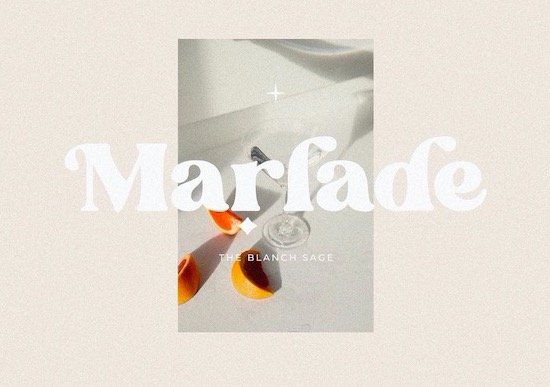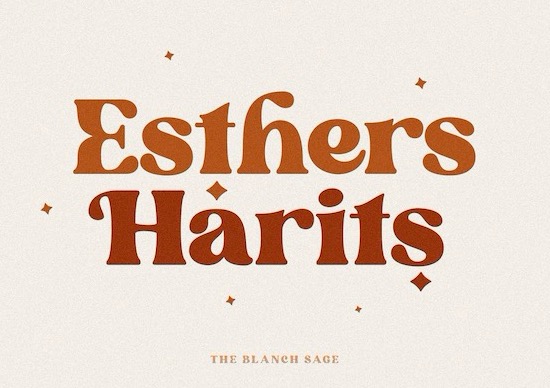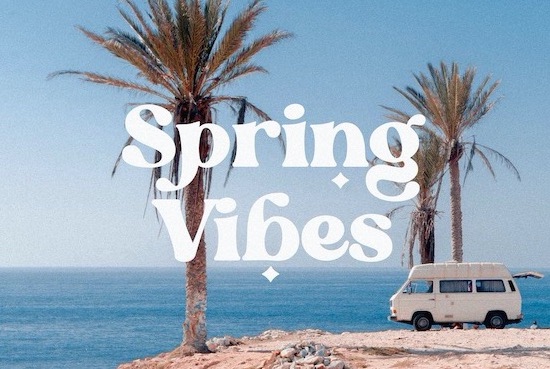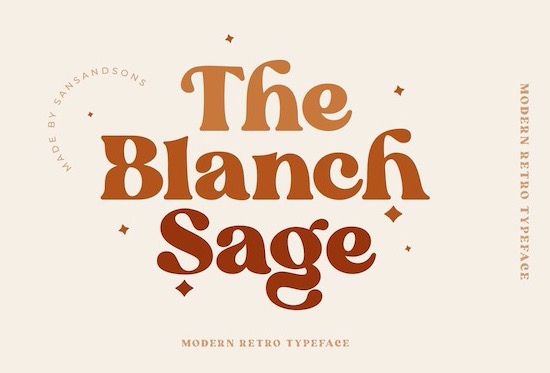
Introducing Blanch Sage Font. It’s an elegant and chic serif font that has a unique retro feel. It was designed and published by Sans & Sons along with Fun and Elegant Style and is perfect for branding, logos, invitation, master heads, and more.
Blanch Sage Features :
- Multilanguage
- Alternates
- Ligatures